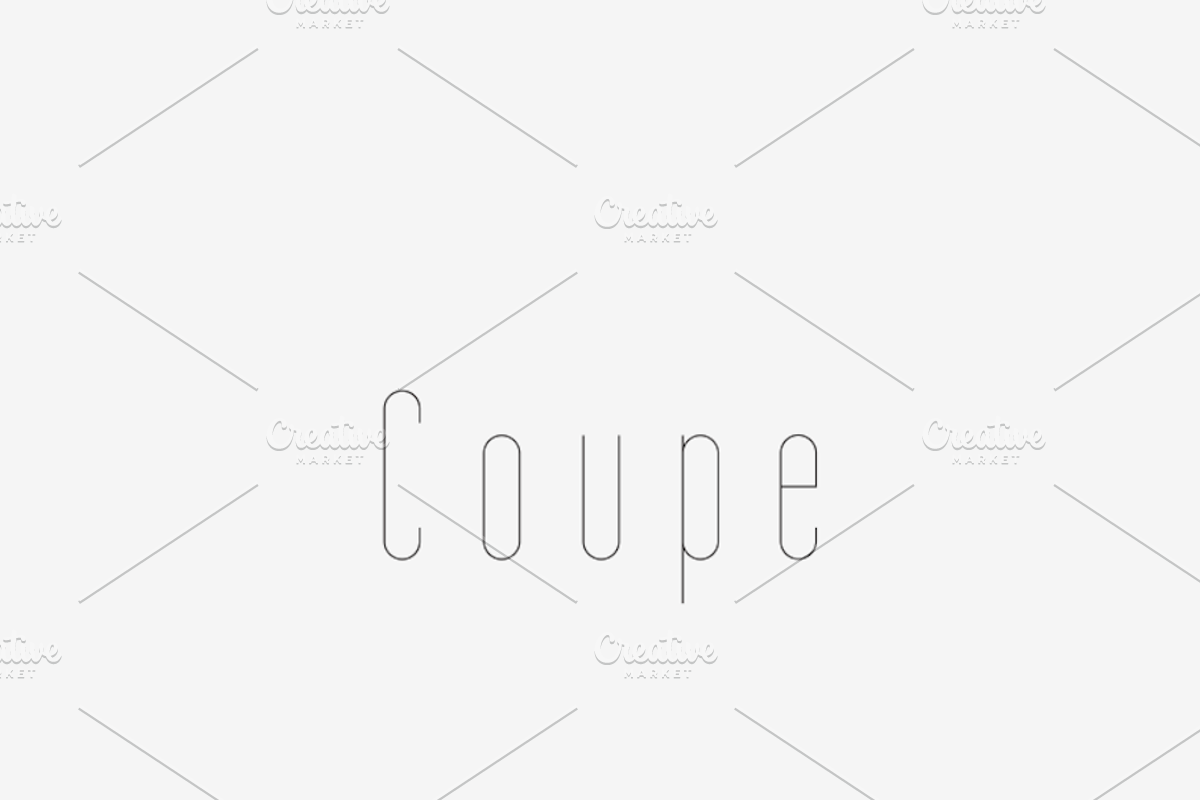
Coupe Font Free Download is a sleek, vintage-inspired typeface that combines classic automotive flair with modern design versatility. Please note: you must purchase this font for commercial use, but you can test it through a free download. Its sharp edges and clean curves make it perfect for logos, racing-themed posters, retro branding, signage, and apparel designs.
With a bold personality and nostalgic edge, Coupe Font Free Download delivers a strong visual identity while remaining easy to read and work with. Whether you're crafting a retro racing logo or giving your design a stylish, masculine vibe, this font adds motion and attitude. It’s fully compatible with popular design tools like Adobe Illustrator, Photoshop, and Canva, offering seamless integration into your creative workflow. Download it now for personal use and take your designs for a spin with the dynamic energy of Coupe!